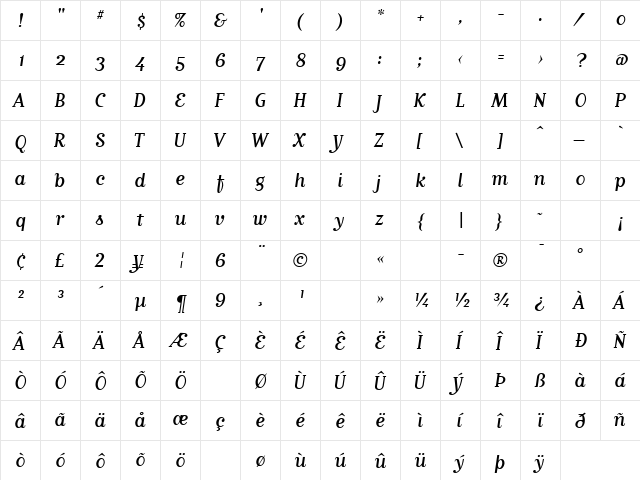
MatrixScriptRegularOldstyle Regular
Design Context for MatrixScriptRegularOldstyle Typeface
MatrixScriptRegularOldstyle brings a calligraphic fluidity to the page — its connecting strokes and expressive curves give it an unmistakably human quality.
Font Pairing: Combine MatrixScriptRegularOldstyle with a simple geometric sans for maximum contrast — the tension between flowing curves and clean structure is a classic typographic pairing.
Pro Tip: Pair MatrixScriptRegularOldstyle with a clean sans-serif for supporting text. The contrast between fluid script and geometric structure creates an elegant typographic hierarchy.